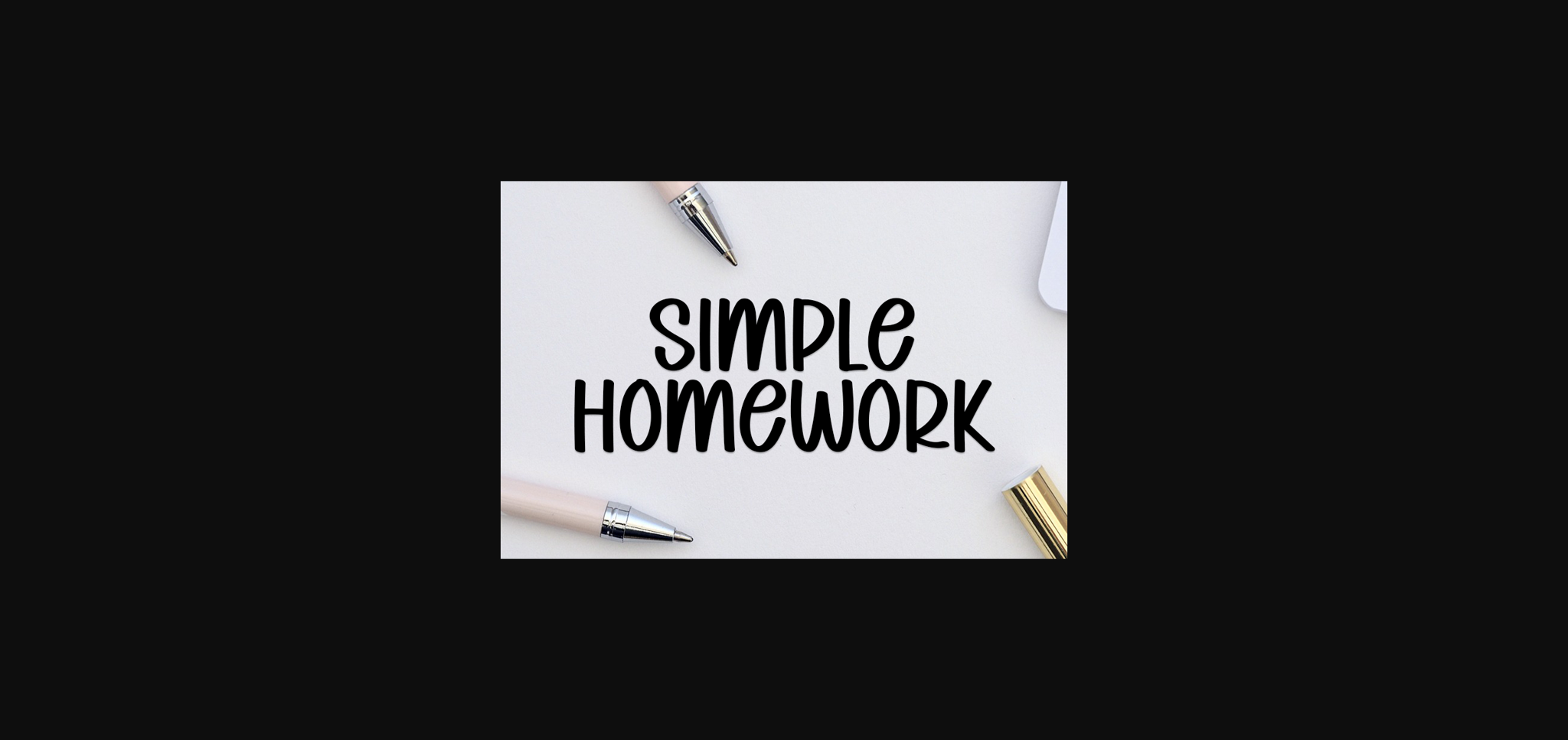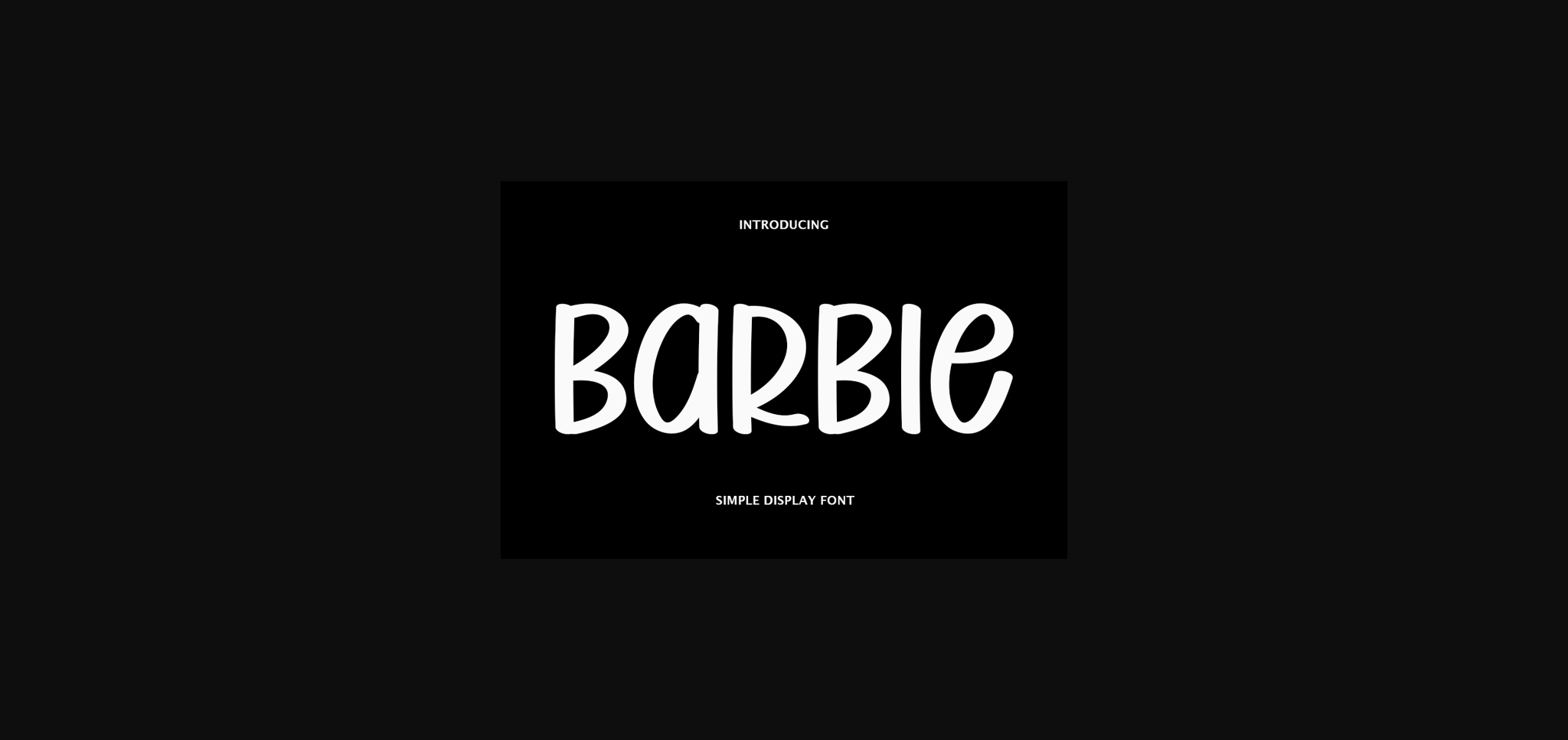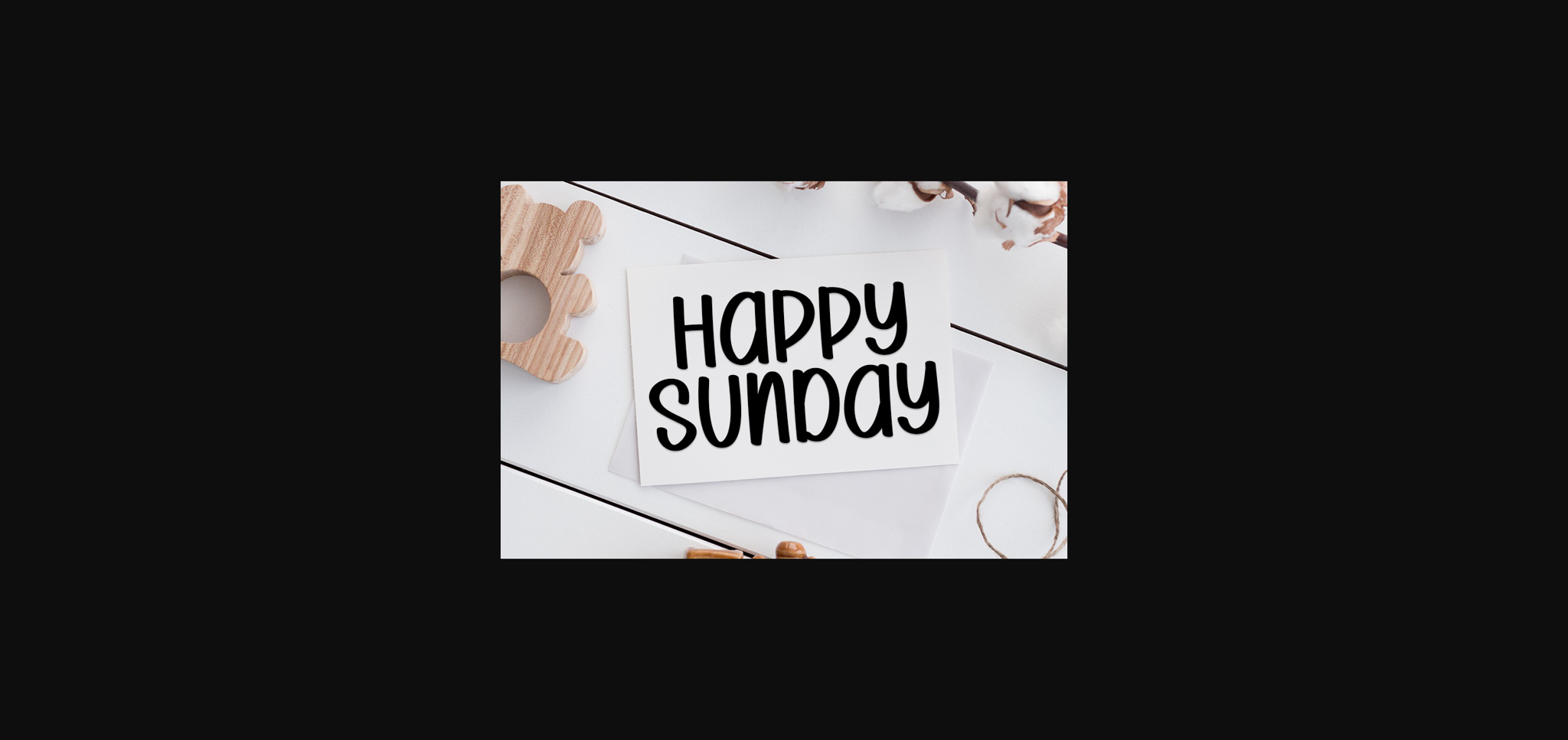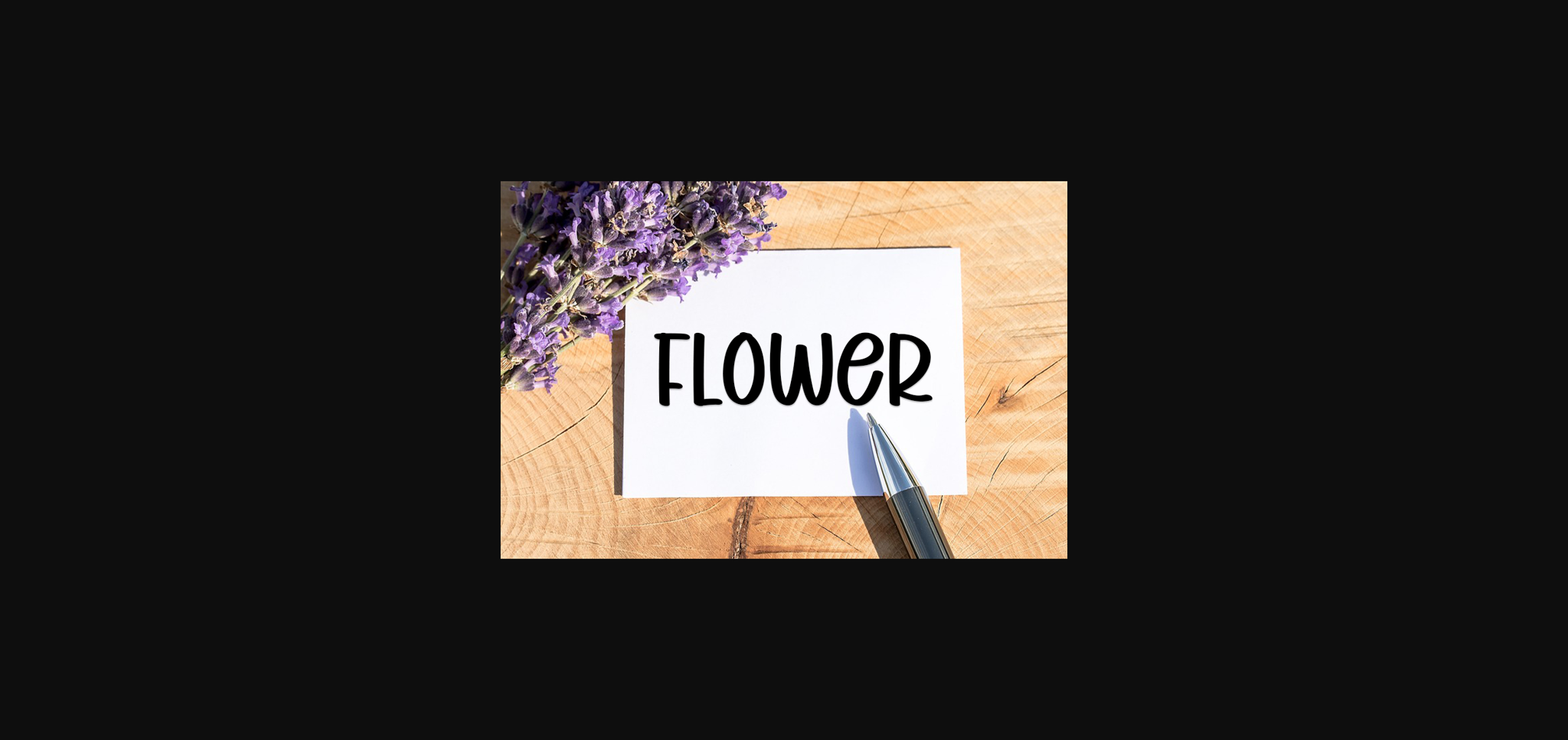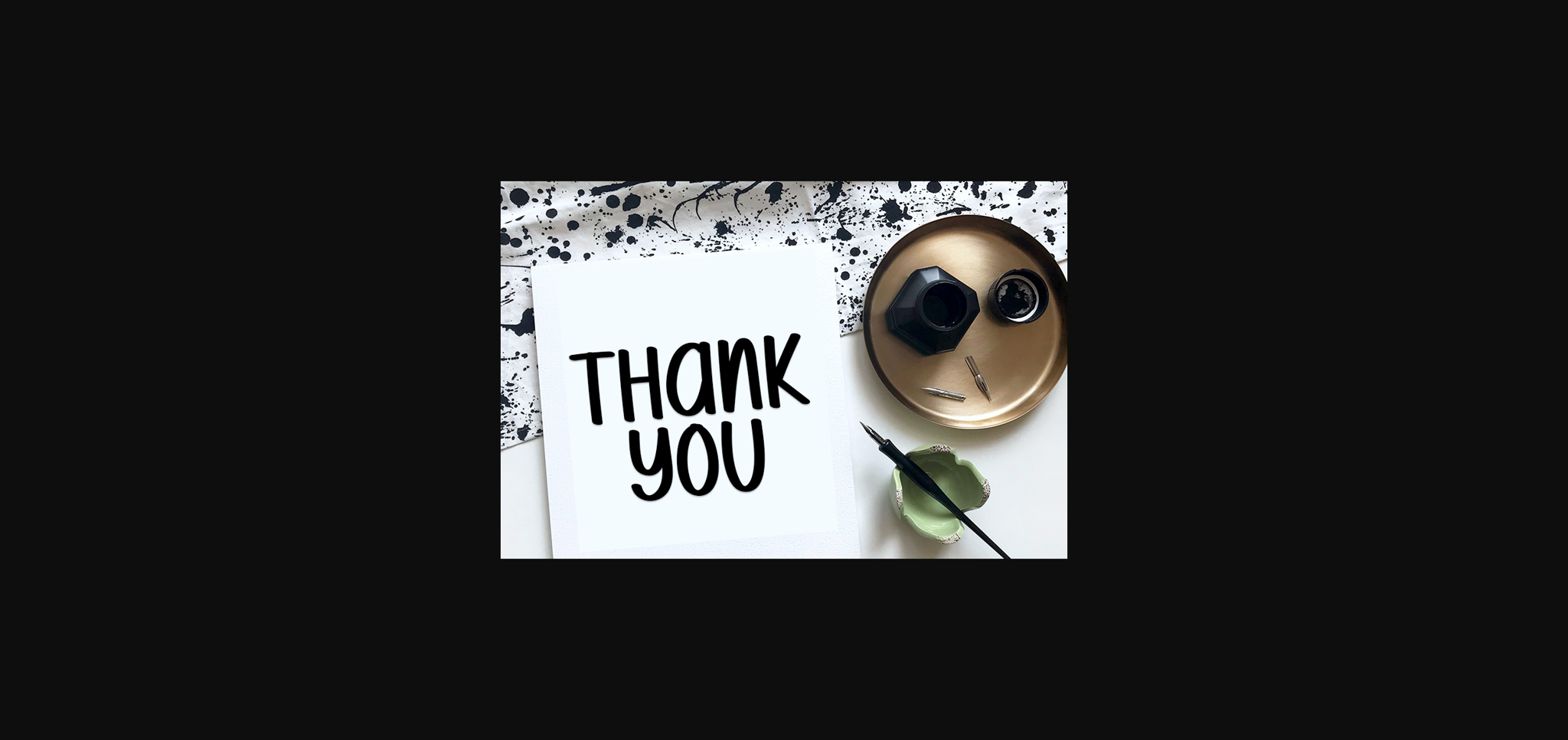
HomeSans Serif FontsBarbie Font Sans Serif Fonts Barbie Font FacebookXPinterestWhatsApp 1 of 7 ... Barbie Font Poster 2... Barbie Font Poster 3... Barbie Font Poster 4... Barbie Font Poster 5... Barbie Font Poster 6... Barbie Font Poster 7... About Barbie Font Barbie is a cool and modern sans-serif font. Whether you’re using it for crafts, digital design, presentations, or creating greeting cards, this font has the potential to be your go-to font, whatever the occasion. DOWNLOAD NOW People also explored Just You Font Astenrow Font Rough Beauty Script Arsenio Font Autumn Love Duo Font Bijique Antique Font Hard to Love Font Historia Font Koutura Font 299 0 TagsBarbieBarbie Font Previous articleGallery FontNext articleLemontea Font LEAVE A REPLY Cancel reply Comment: Please enter your comment! Name:* Please enter your name here Email:* You have entered an incorrect email address! Please enter your email address here Website: Save my name, email, and website in this browser for the next time I comment. Personal Use Free Histeria Bites Personal Use Free Read more about this font Welcome Creative Personal Use Free Read more about this font Mandarins Personal Use Free Read more about this font Millea Personal Use Free Read more about this font BLOG Using Fonts in Digital Marketing: Tips to Strengthen Your Brand Identity In the realm of digital marketing, every visual element plays a crucial role in shaping a brand's identity, and fonts are no exception. The... How to Cut Any Font on Cricut: Convert a Font to SVG (Free) The 10 Best Handwriting Fonts to Add Personality to Your Designs Transform Your Website: Elevate Your Typography with 7 Best Web Font Generators